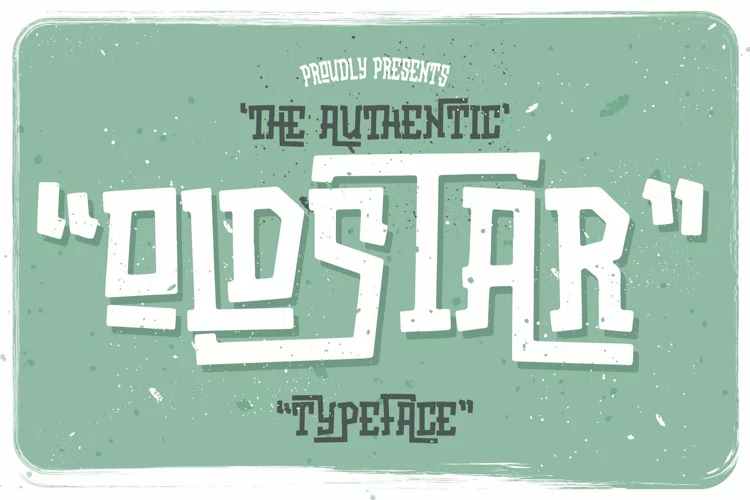
Web Font Oldstar Typeface
Oldstar Typeface is dedicated to lovers of custom culture. Vintage and Retro is the biggest inspiration in making this font. You can apply this font to create a logo with a ligature, stylistic and you can easily to modify these fonts into a shapes that you like. hopefully pleasing.